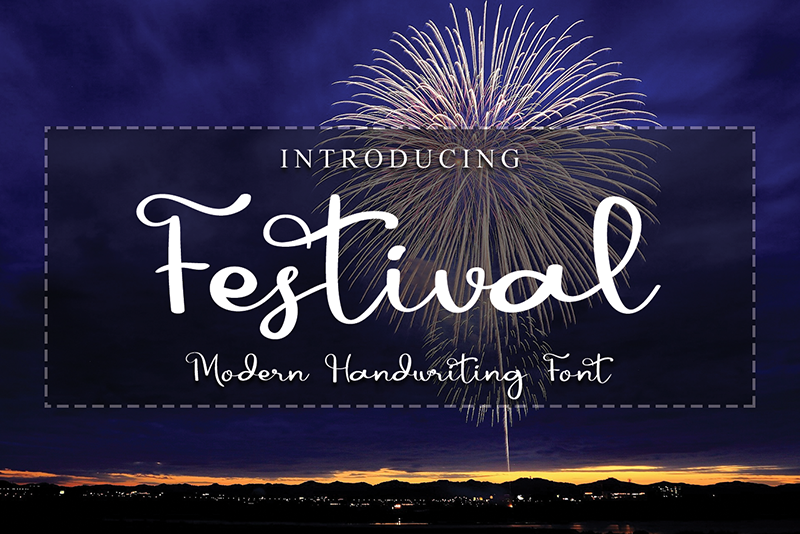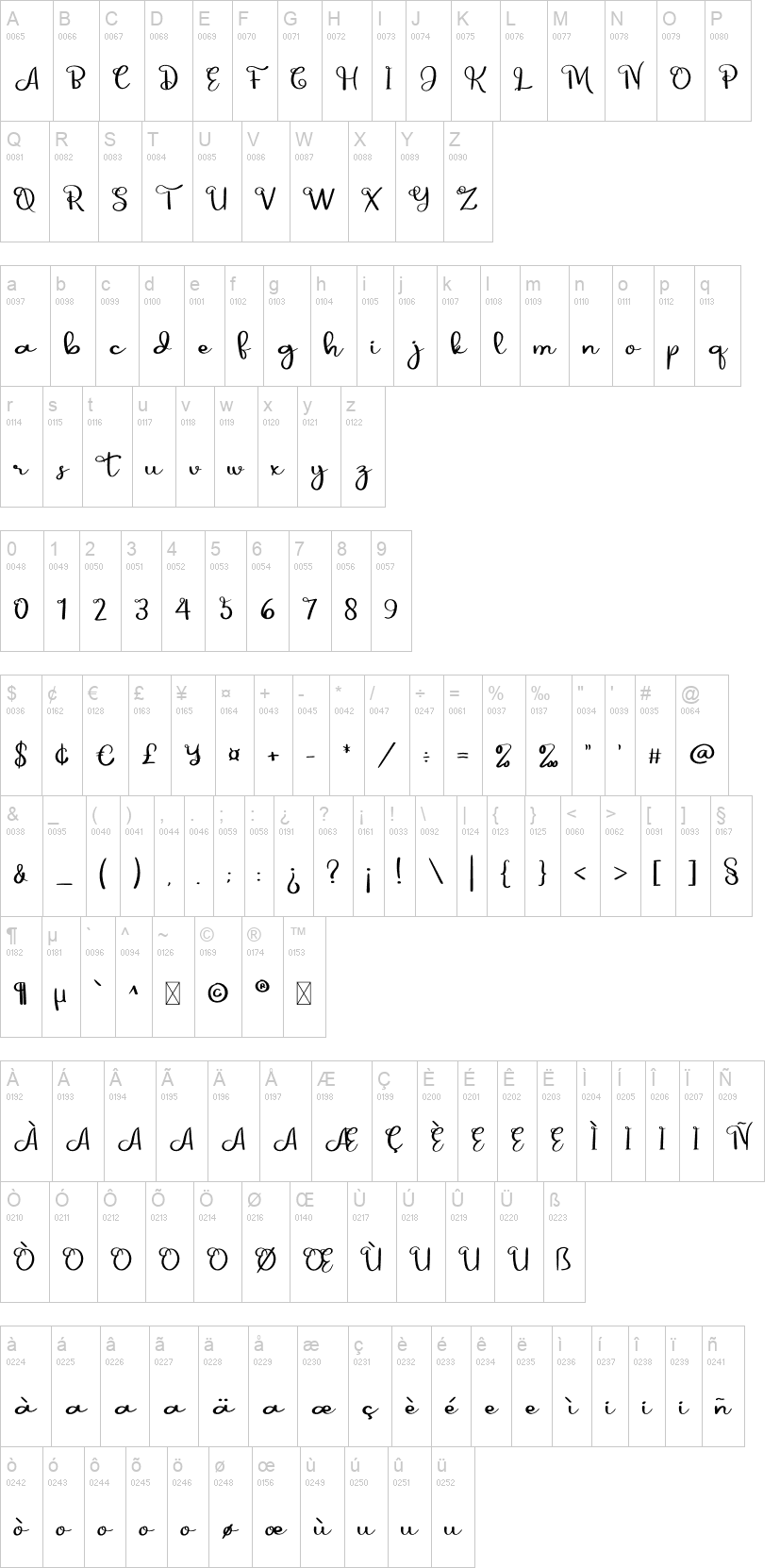
Note of the authorFestival is a beautiful and refined script font. It has a classy, elegant, and modern look that can be used for logos, branding, invitations, stationery, wedding designs, social media posts, and much more!